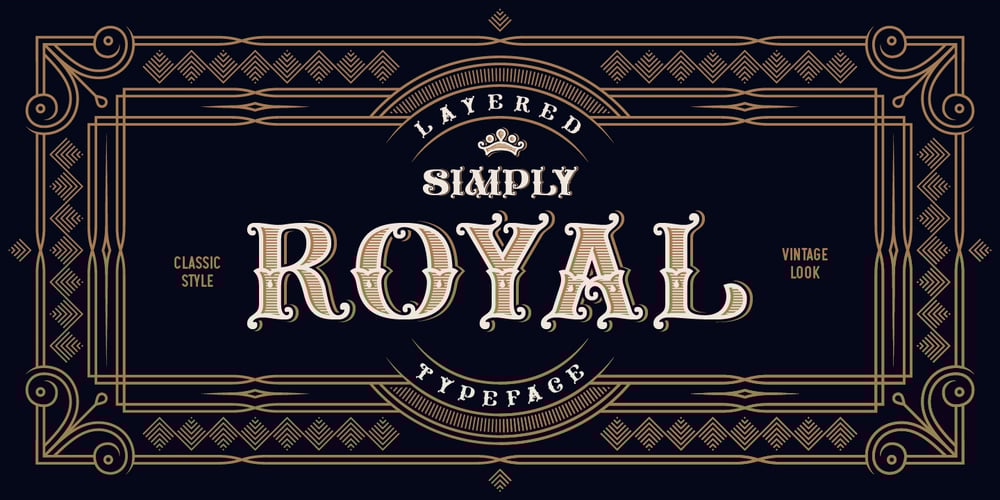
Simply Royal Font Family was designed by Gleb Guralnyk and published by Gleb Guralnyk. Simply Royal contains 4 styles and family package options. Introducing a vintage font Simply Royal. This typeface has a victorian medieval look. It’s an all caps typeface with decorative classic style. Simply royal has three layer fonts for more conenient recoloring.Thank you and have a nice day!